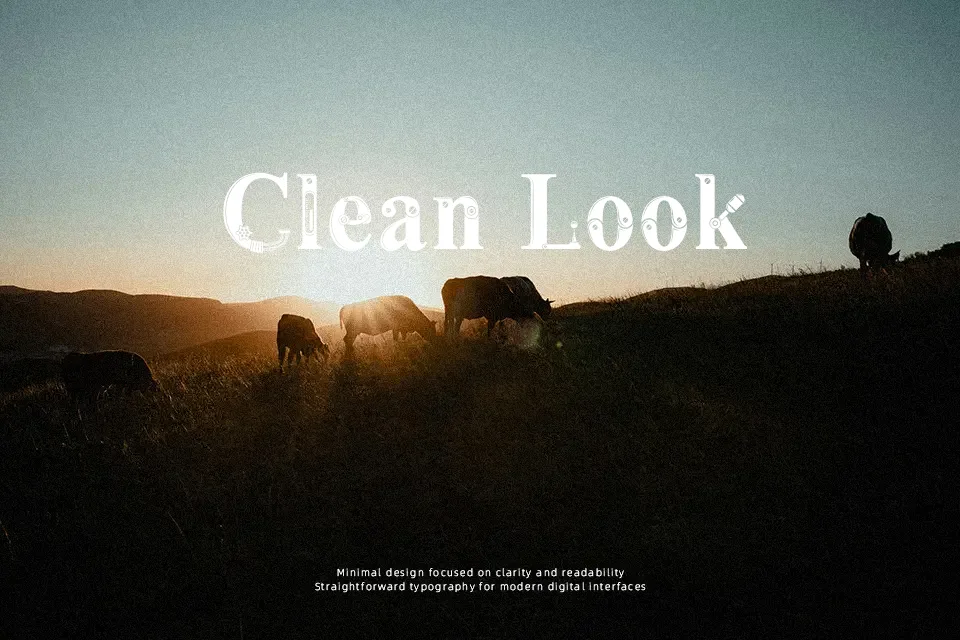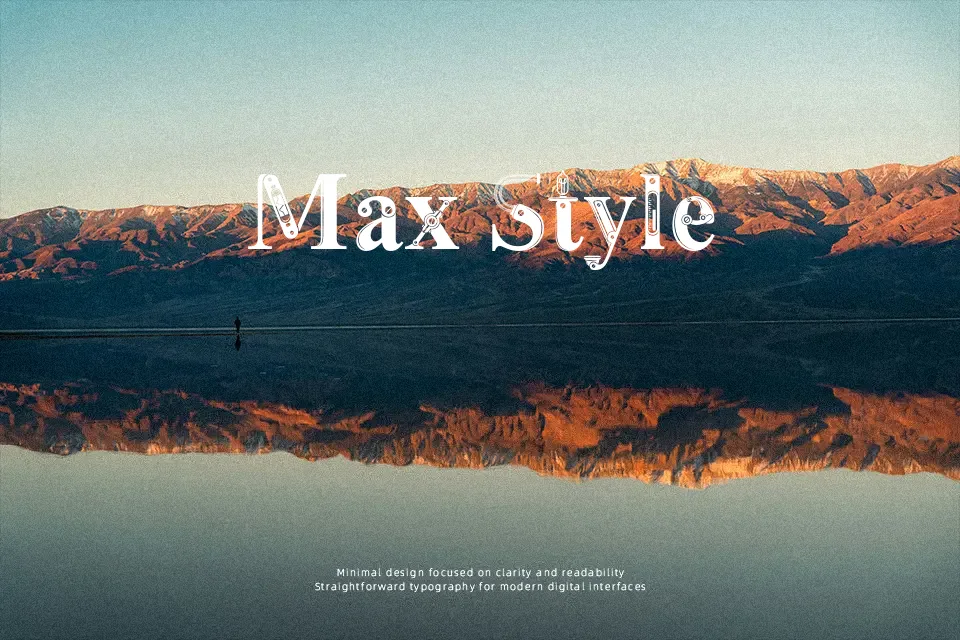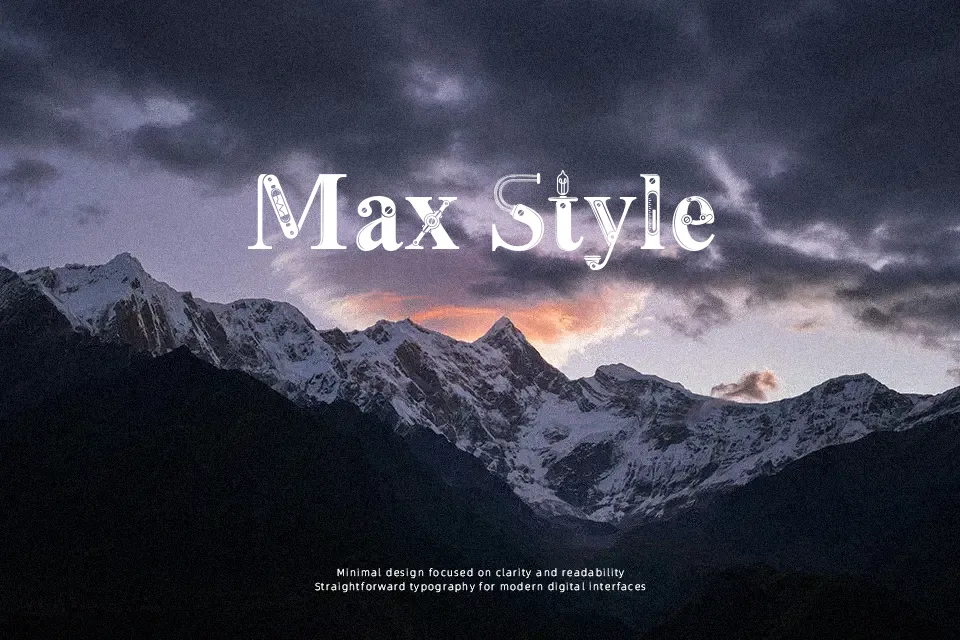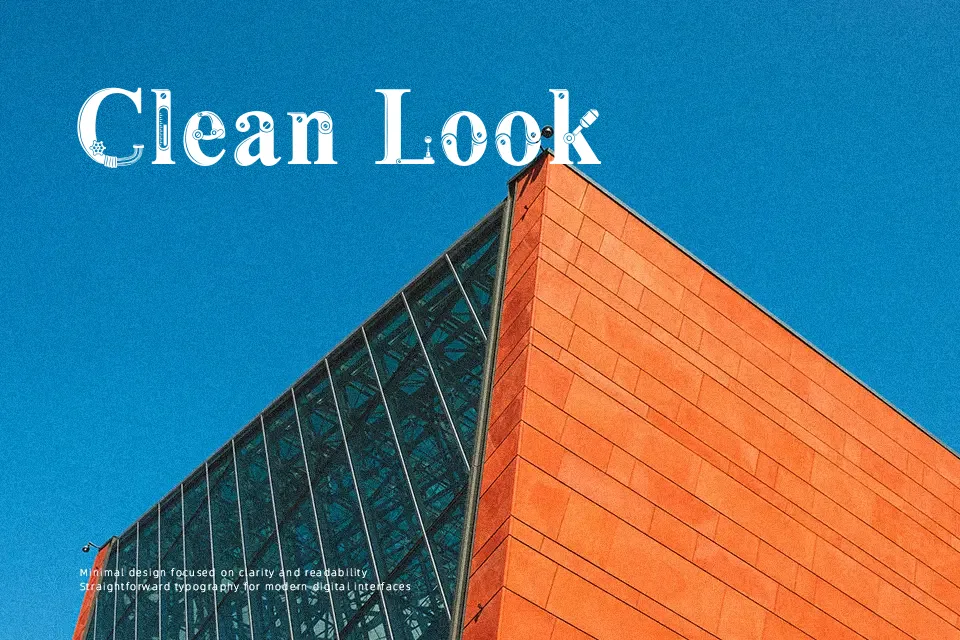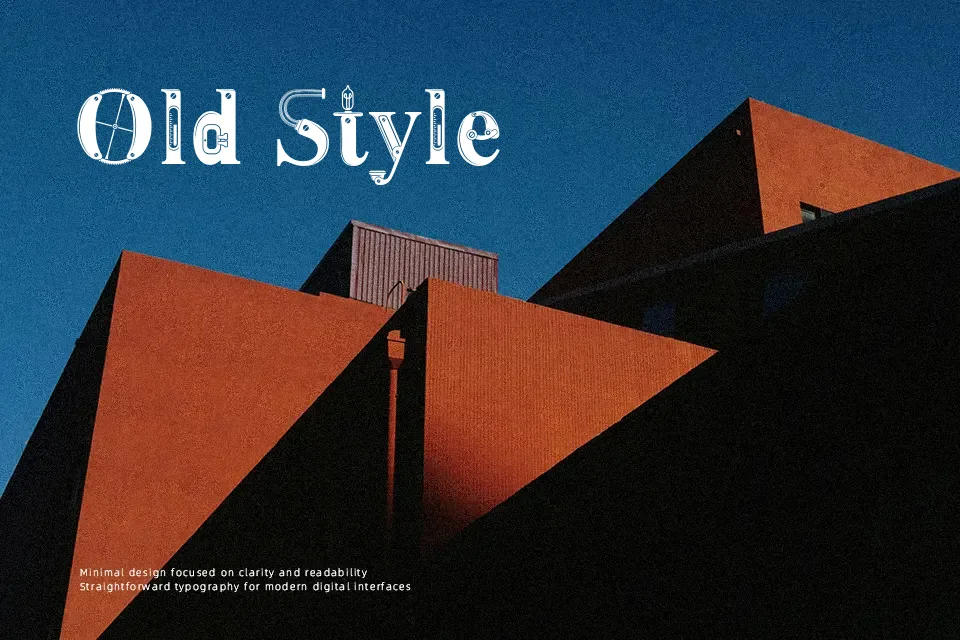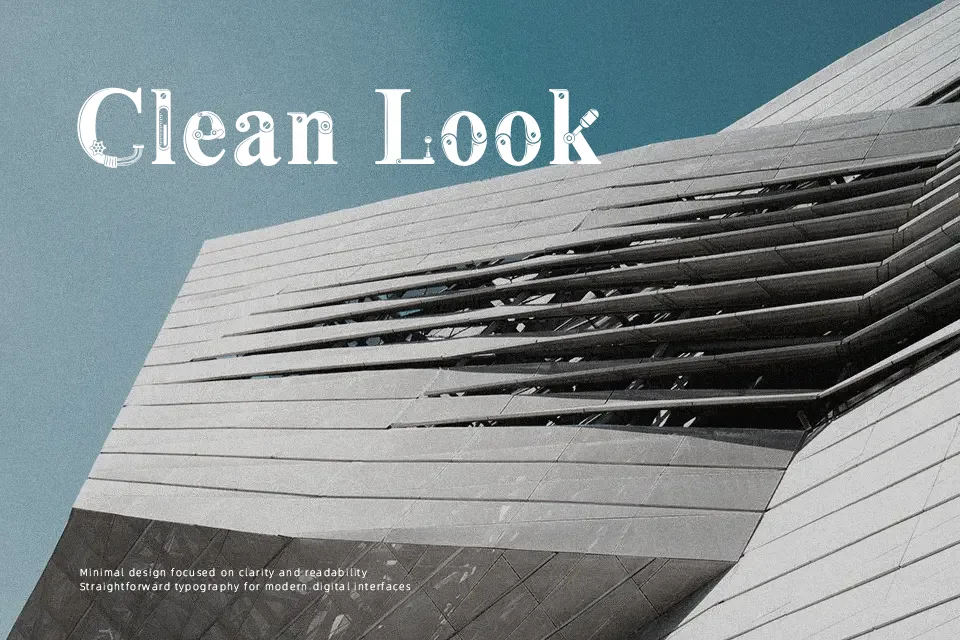
Steamy Font
Steamy Font presents an ornamental visual structure defined by mechanical components, industrial detailing, and pronounced geometric construction. The letterforms feature thick stroke weights paired with tight spacing, giving words a compact and unified presence. Character proportions remain sturdy across uppercase glyphs, though the intricate interior cutouts demand sufficient scale to stay legible. In practical application, the typeface excels across music festival banners, tabletop game covers, and apparel graphics where dramatic personality takes priority over neutrality. However, the dense decorative complexity significantly degrades legibility in continuous text blocks, making it unsuited for book composition or mobile interfaces.
Best For: vintage packaging, tabletop game covers, festival posters, apparel graphics
Not Ideal For: continuous body copy, mobile app ui, legal text, spreadsheet tables
Perfect for branding, gaming, and headline, with a artistic and decorative style.